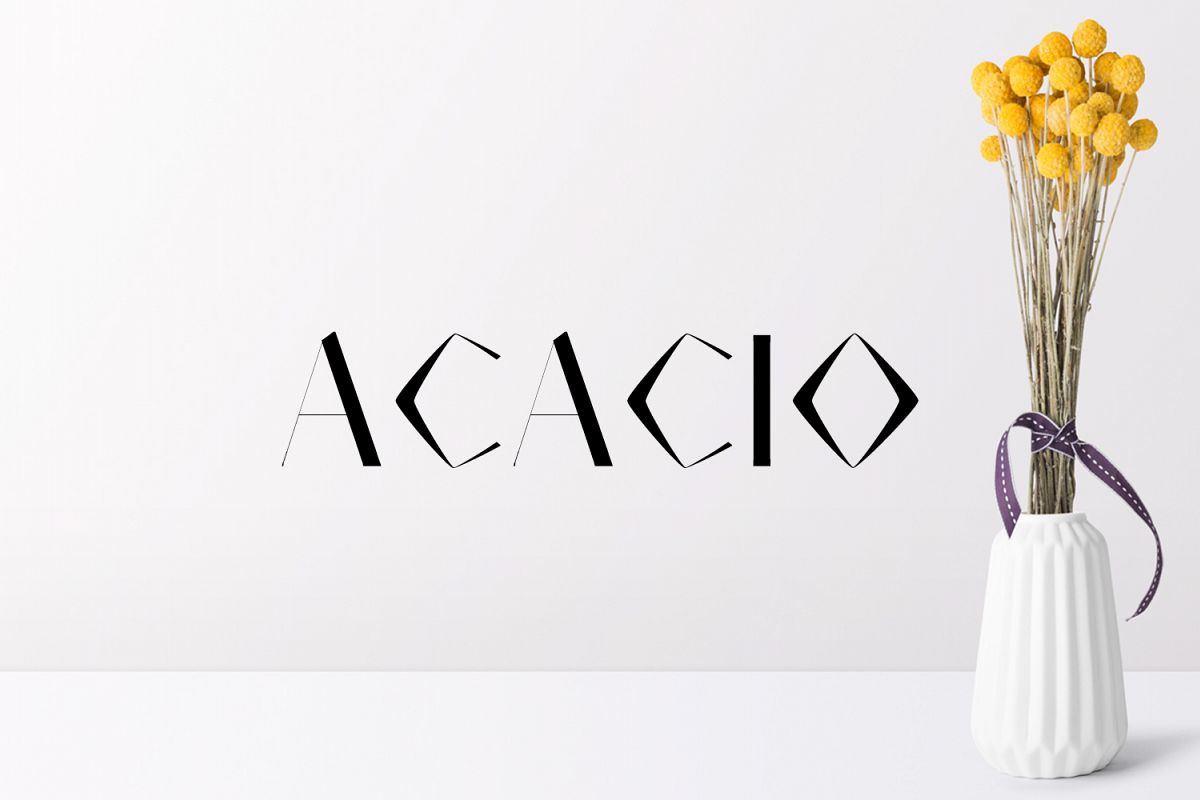
Acacio Serif 2 Font Family Pack
Acacio Serif 2 Font Family Pack features unique and modern serif look and feel. Perfect for gorgeous logos, titles, web layouts and branding. It looks gorgeous in all caps with a wide-set spacing if you want to try a classy look, or beautiful on its own in capital and lowercase letters for something completely timeless.
Acacio Font Features:
• Uppercase Multilingual Letters
• Lowercase Multilingual Letters
• Alternative